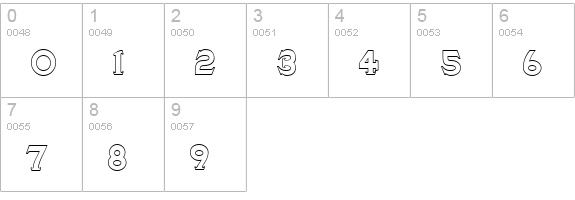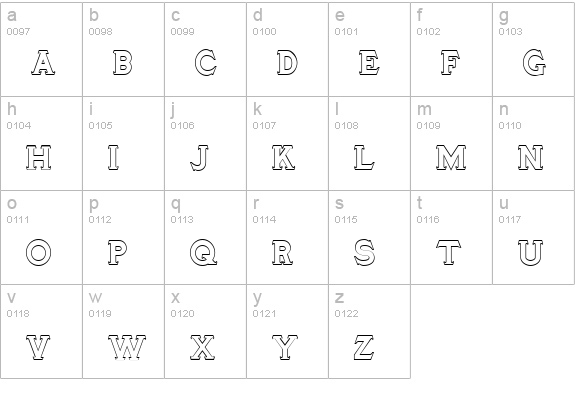
Introducing TinplateTitling, a breathtaking font that effortlessly combines elegance and charm. This font is the epitome of sophistication, with its clean lines and precise detailing, making it the perfect choice for any design project that requires a touch of class. TinplateTitling exudes a timeless appeal that is sure to captivate any audience. Its bold and strong presence demands attention, making it ideal for logos, headlines, and branding materials. Whether used in print or digital media, this font will make a lasting impression. What sets TinplateTitling apart is not only its stunning aesthetics but also its versatility. It seamlessly adapts to various design styles, effortlessly enhancing any creative endeavor. From vintage-inspired designs to modern and minimalist layouts, this font effortlessly complements any theme. One of the most remarkable aspects of TinplateTitling is that it is completely free. Yes, you read that right! This extraordinary font is freely available to download at FontsMarket.com. Now, you can unleash your creativity without worrying about breaking the bank. This font offers a unique opportunity to elevate your designs without compromising on quality or budget. So why wait? Download TinplateTitling today and unlock a world of endless possibilities. Whether you are a professional designer or an aspiring creative, this font will be your go-to tool, empowering you to create stunning visuals that leave a lasting impact. Experience the beauty, elegance, and versatility of TinplateTitling - your next design masterpiece awaits!